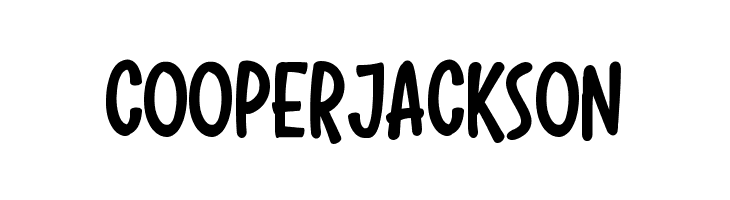
( Fonts by Vanessa Bays - bythebutterfly.com )
A playful, bold outline font with a comic book feel.
( Fonts by DM Letter31 )
A playful, whimsical font with a hand-drawn quality and contrasting strokes.
( Fonts by Cathy Davies - cathydavies.com )
A playful, hand-drawn font with exaggerated curves and sharp angles.
( www.loosydesign.com )
A bold, decorative font with a dripping effect for a playful and eerie look.
( Fonts by www.blambot.com )
A bold, playful handwritten font with rounded strokes and a casual style.
( Fonts by www.blambot.com )
A bold, handwritten font with a playful and dynamic style.
( Fonts by Khurasan )
A playful, rounded font with bold, bubbly letters and a friendly vibe.
( Fonts by GoldenGraph Design )
A playful, bold, and hand-drawn font with rounded characters.
( Fonts by Supersemar Letter )
A playful, handwritten font with tall, narrow letters and decorative elements.
( Fonts by or from www.graffitifonts.net )
A bold, playful font with a 3D effect and cartoon-like style.
( Fonts by Lettersiro Studio )
A playful, hand-drawn font with tall, narrow letters and medium contrast.
( Fonts by Subectype )
A bold, playful font with rounded, brush-like strokes and a dynamic slant.
( Fonts by DumadiStyle )
A bold, dynamic font with a playful, edgy style and exaggerated serifs.
( Fonts by Des Gomez )
A playful, handwritten font with a whimsical and informal style.
( Fonts by Jonathan S. Harris )
A playful and quirky font with bold strokes and unique curves.
A playful, bold font with irregular, chunky letterforms and a hand-drawn feel.
A bold, playful outline font with a cartoonish, three-dimensional style.
( Fonts by Galdino Otten )
A bold, playful outline font with a three-dimensional comic book style.
( Fonts by Des Gomez )
A playful, hand-drawn font with tall, narrow letters and a whimsical style.
( Fonts by Des Gomez )
A playful, hand-drawn font with bold, rounded characters and a whimsical style.
( Fonts by Khurasan )
A playful, hand-drawn style font with bold, rounded characters.
( Fonts by Khurasan )
A playful, hand-drawn font with bold, rounded strokes and a whimsical style.